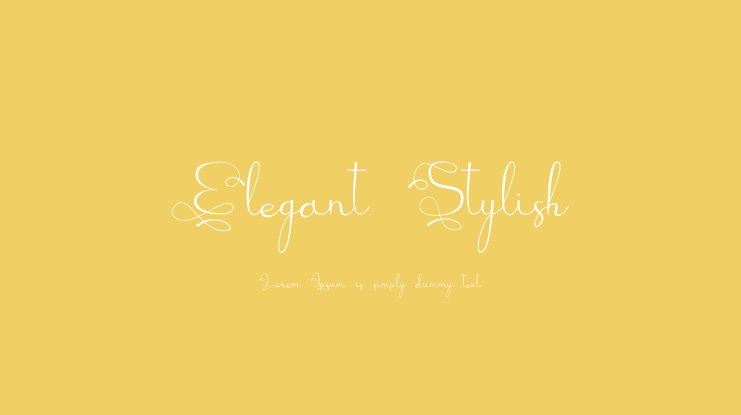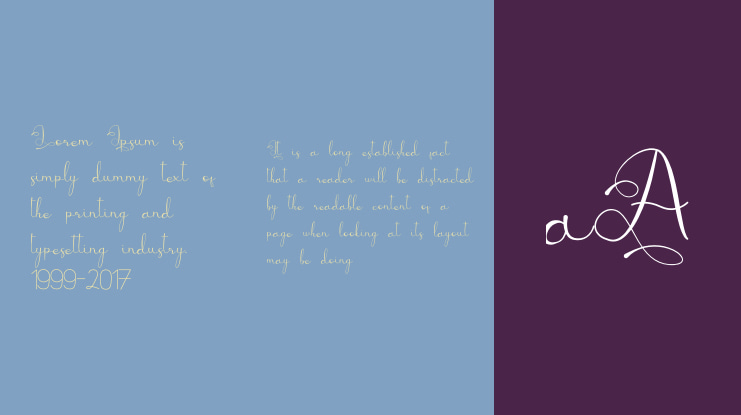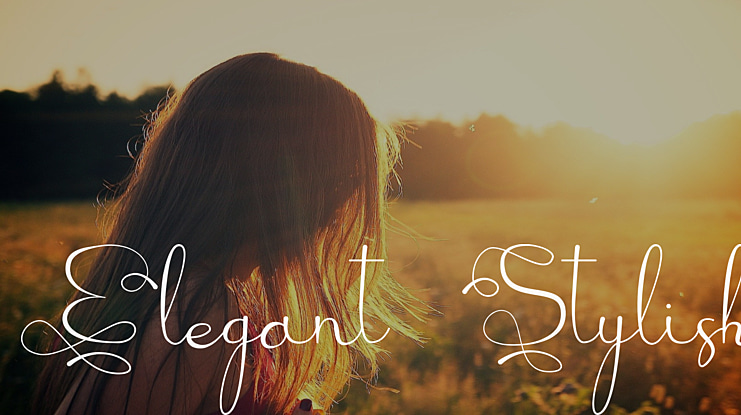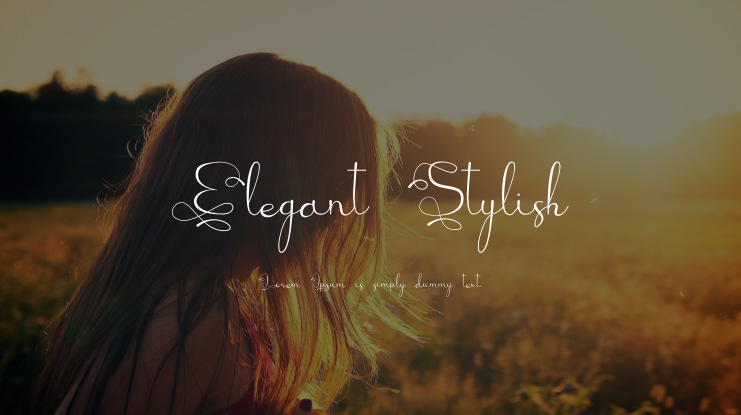
Elegant Stylish Font
Elegant Stylish is a stylish and incredibly elegant handwritten font. It looks stunning on wedding invitations, thank you cards, quotes, greeting cards, logos, business cards, and every other design which needs a handwritten touch.